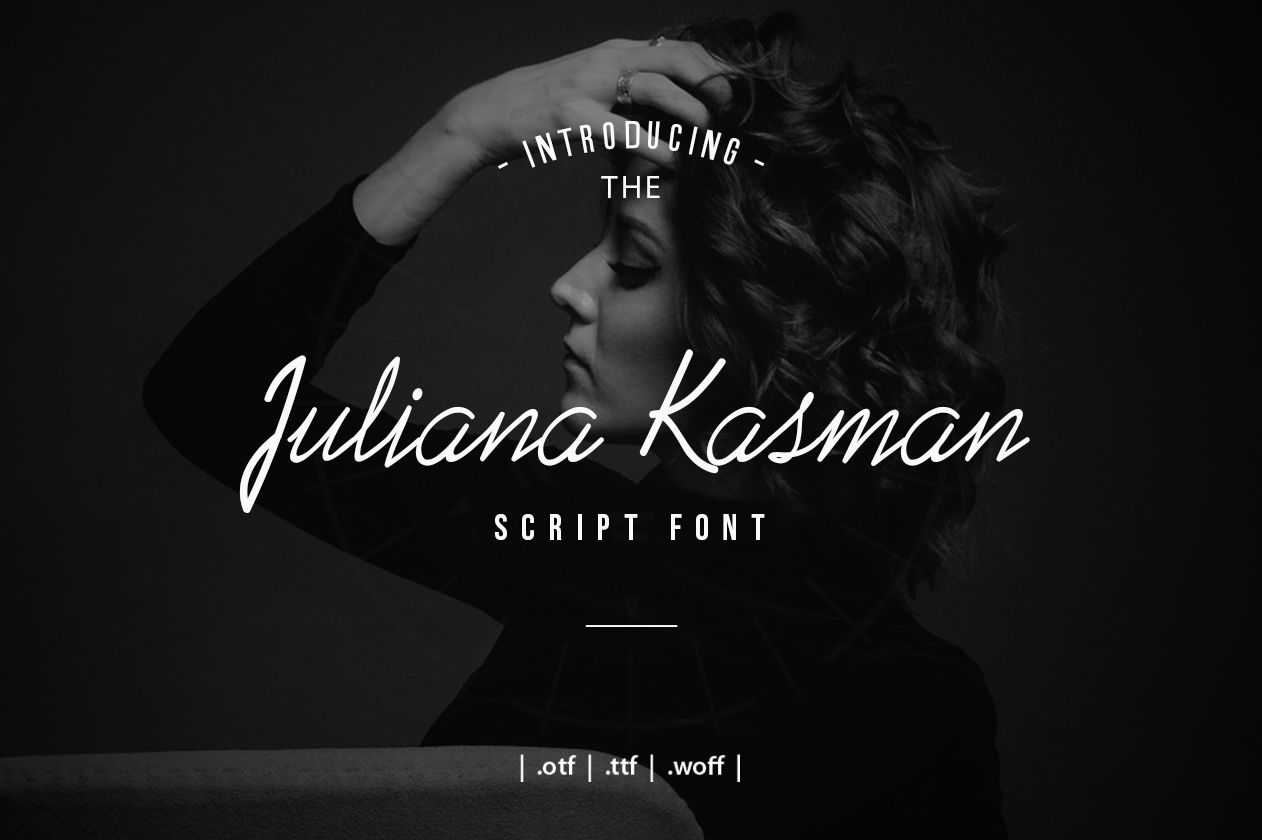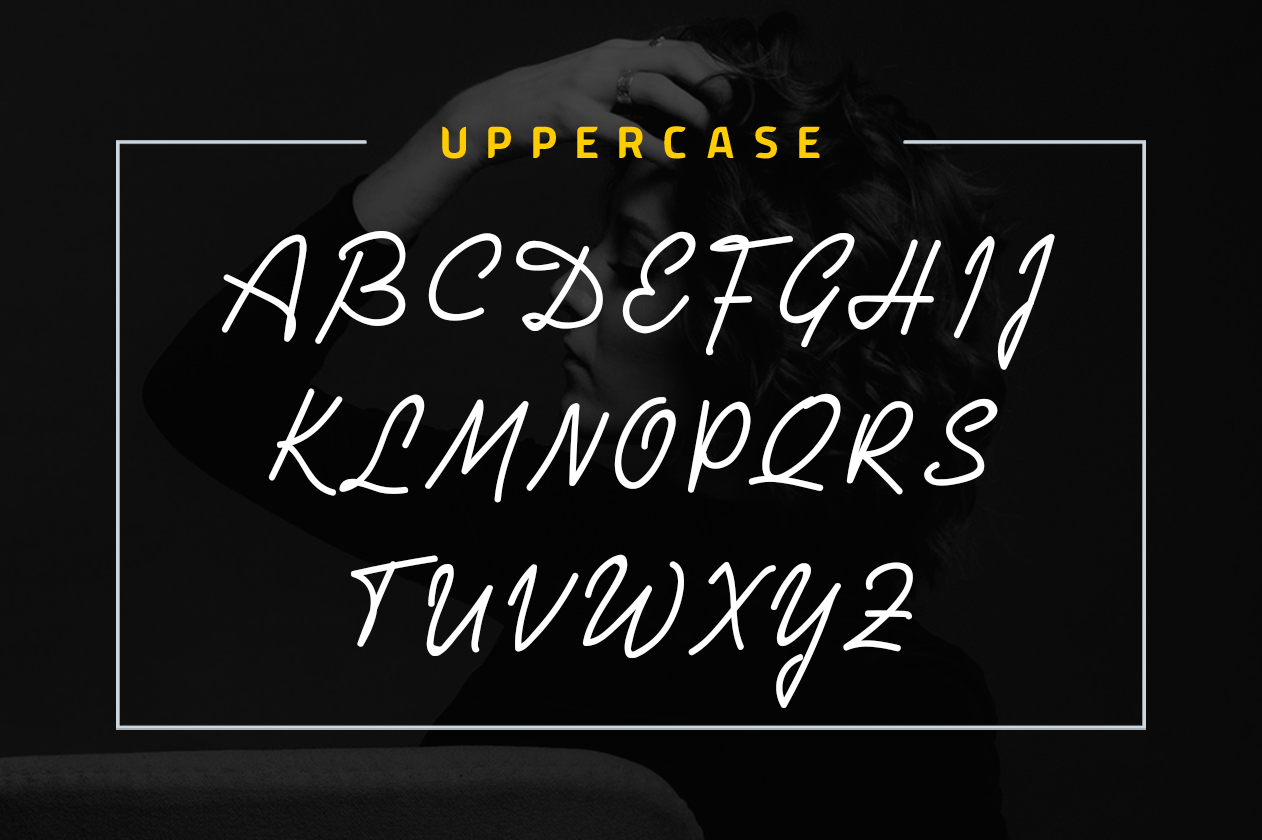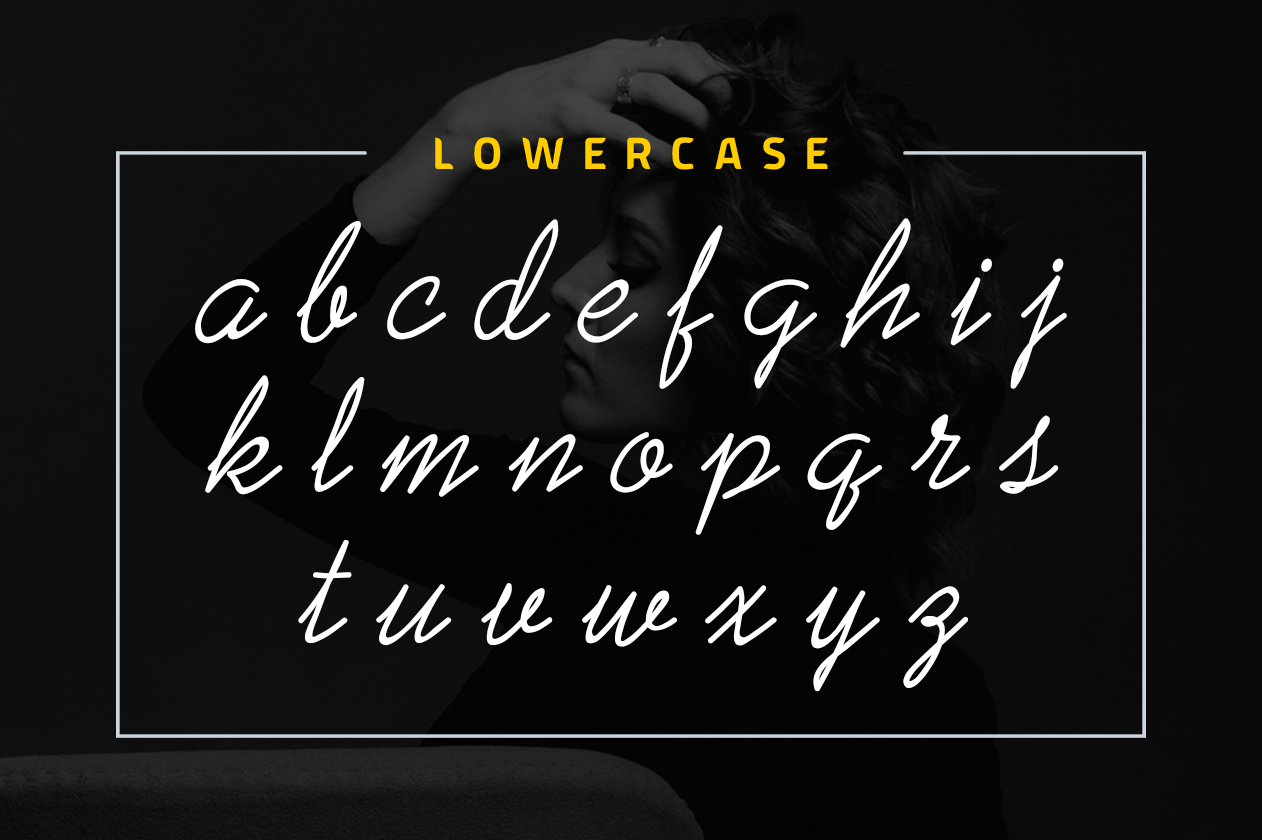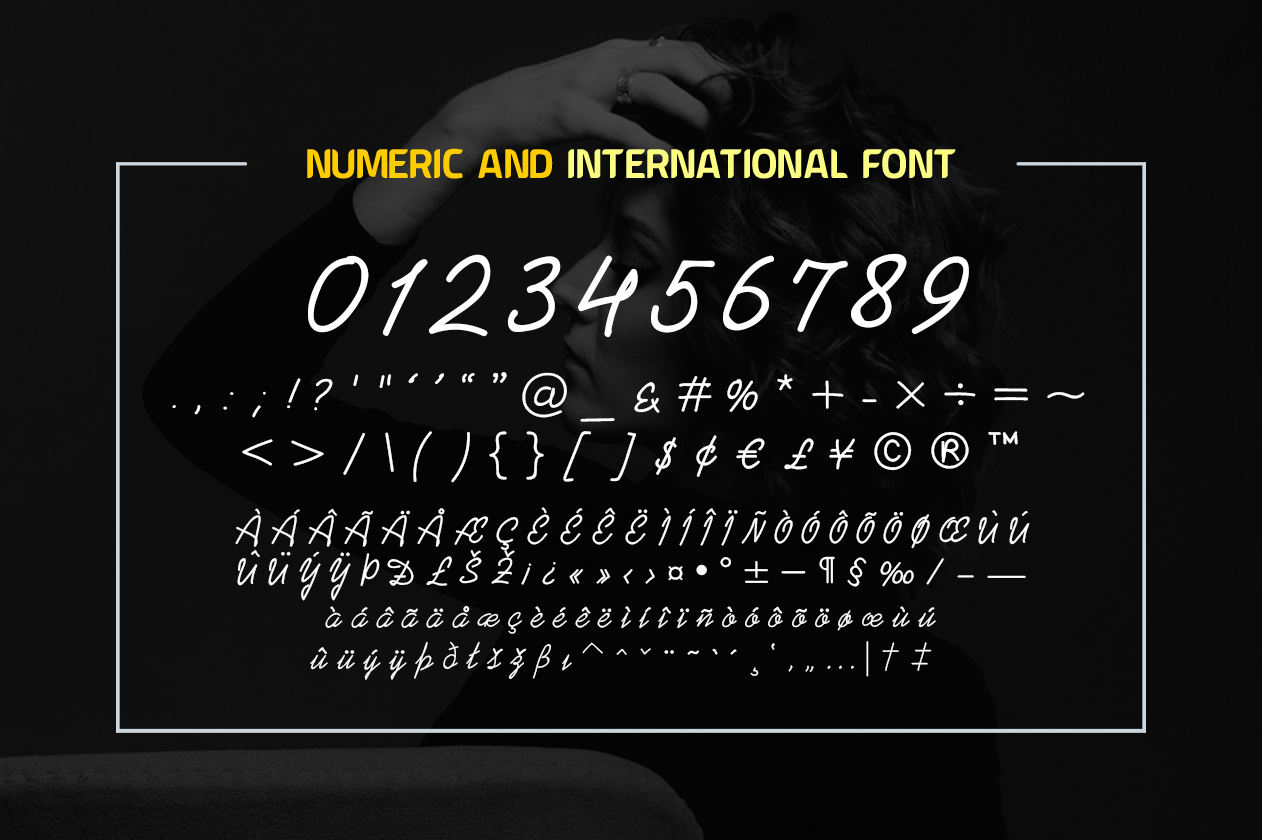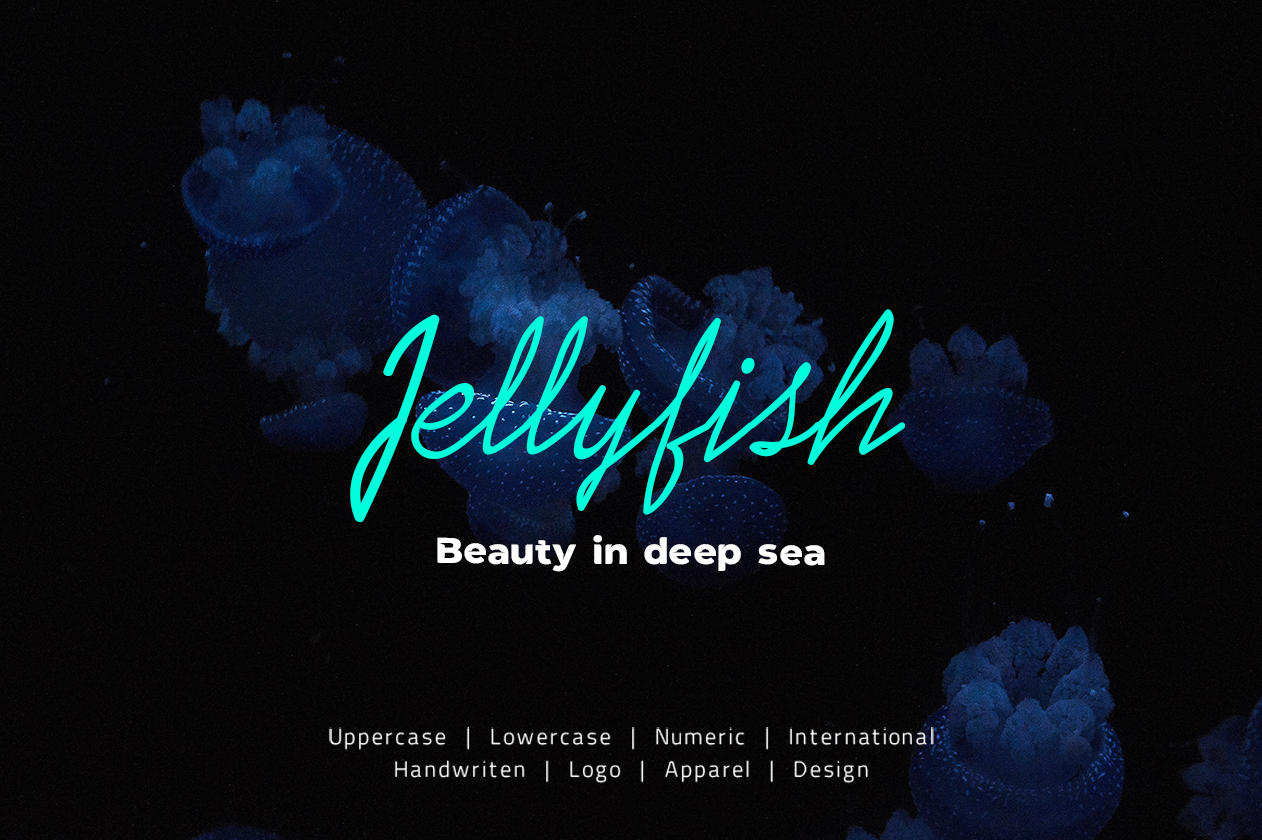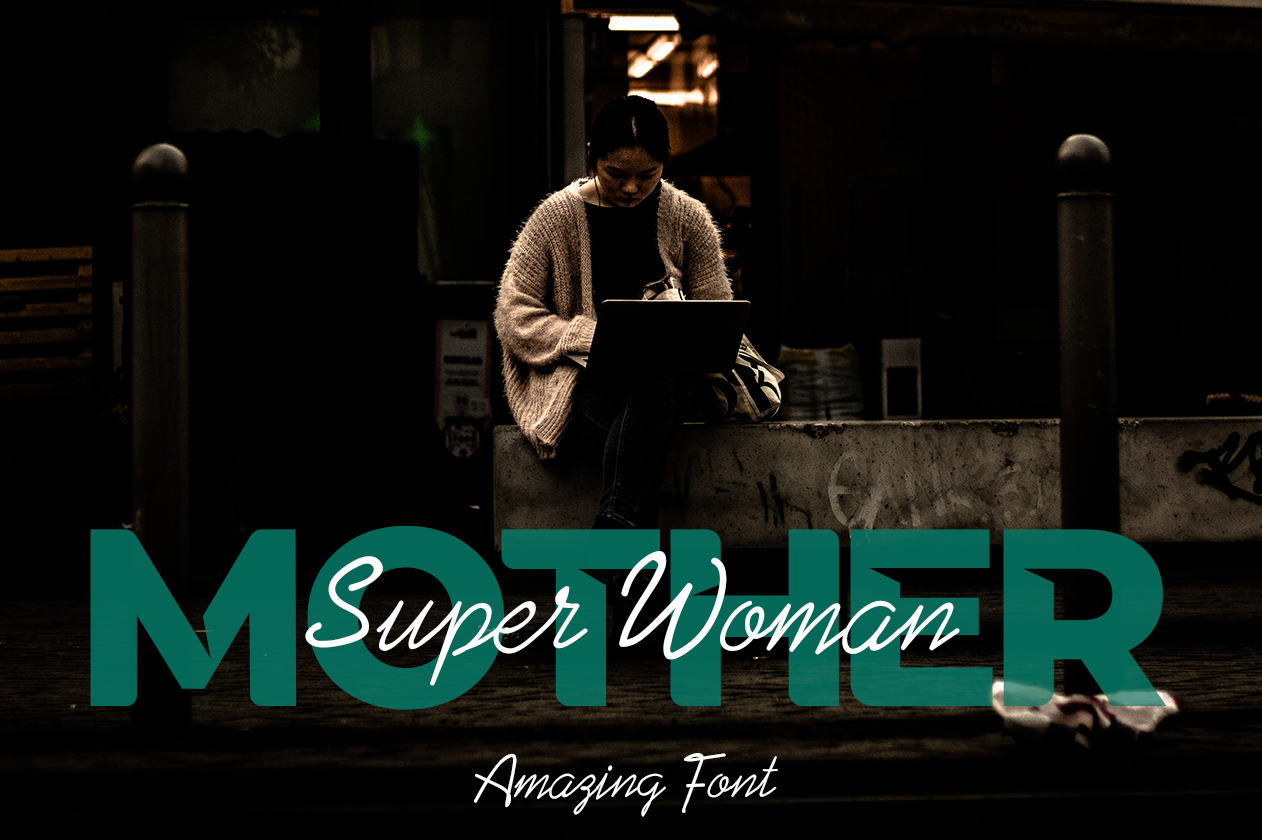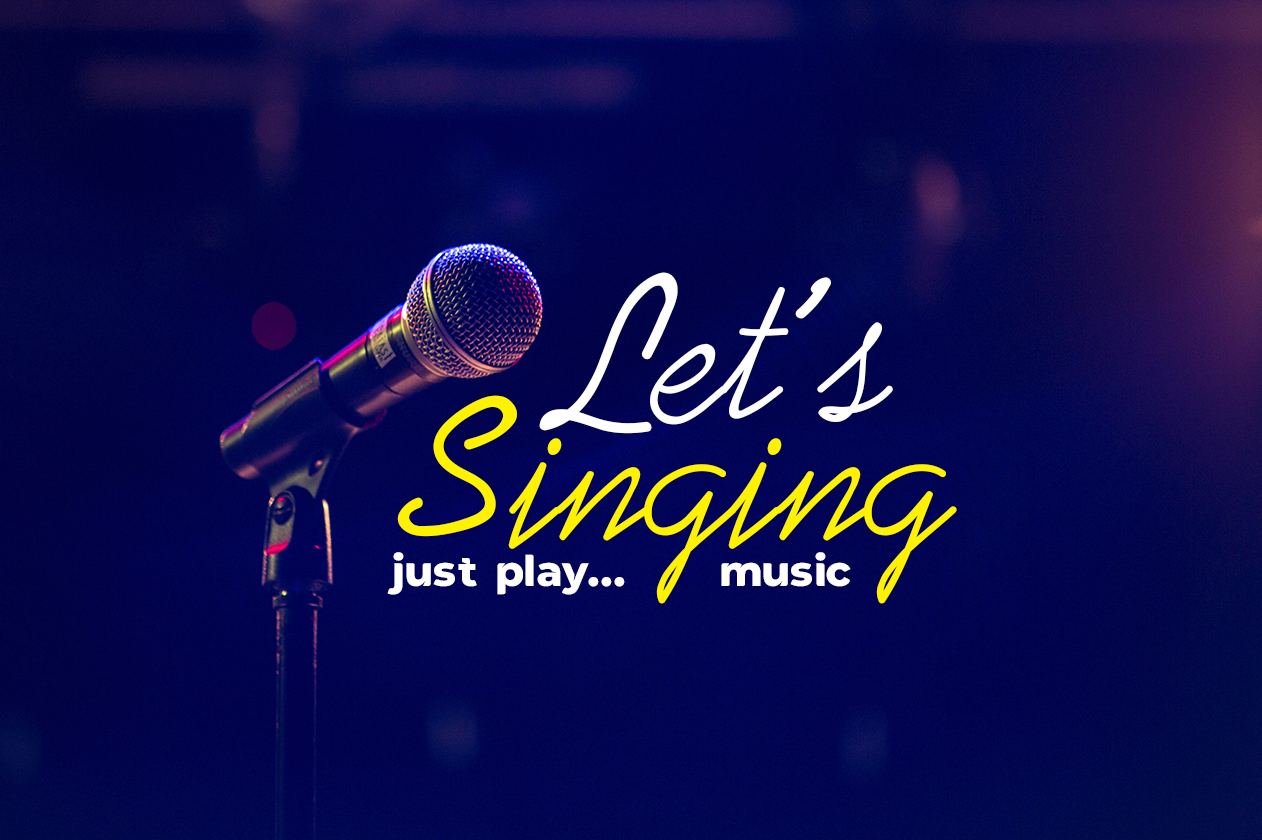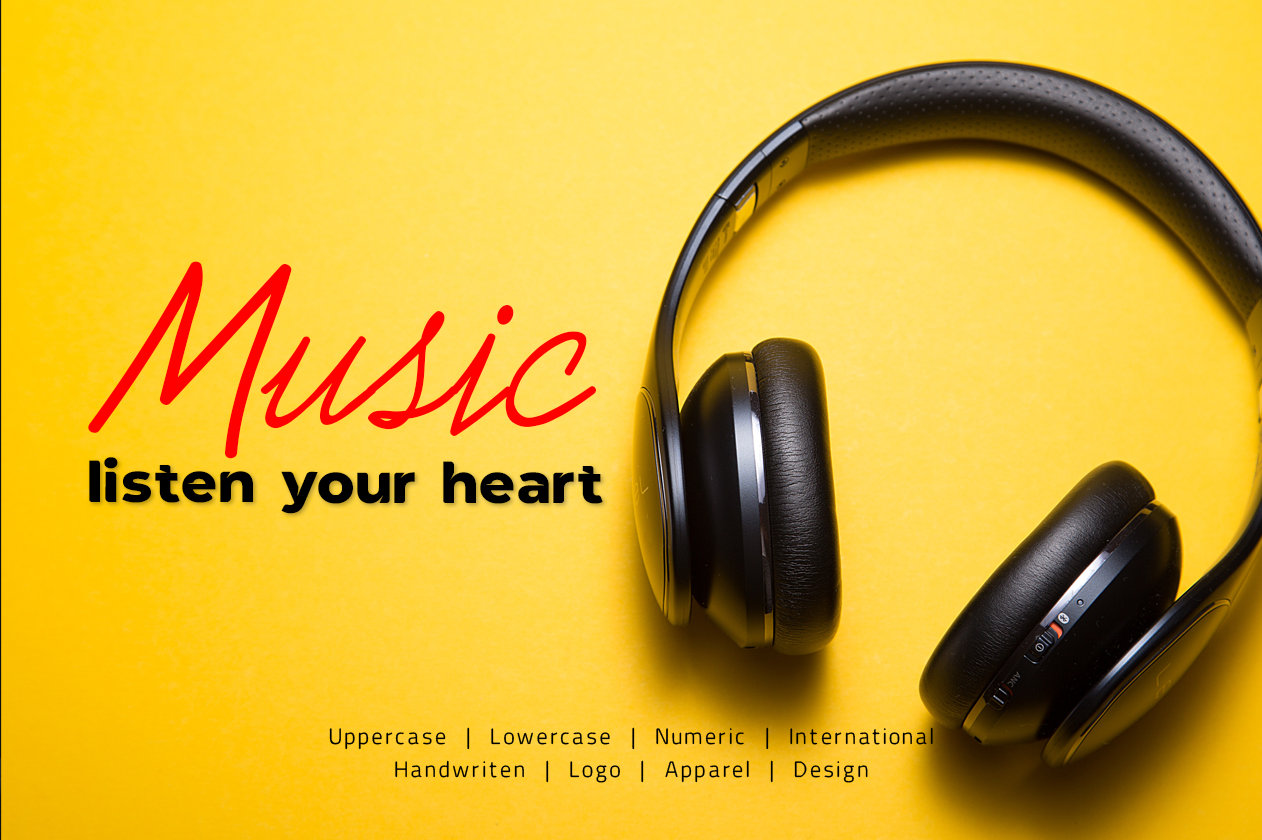
Juliana Kasman Script Font
Juliana Kasman Script is a stylish font that features a varying baseline, smooth line, classic and interesting touch. Can be used for various purposes. such as headings, signature, logos, posters, t-shirt, signage, lable, wedding invitation, badges etc.